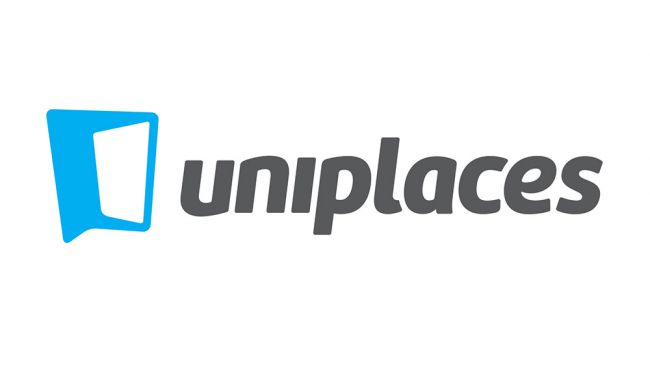
It’s quite close to Ubuntu, but not quite. It could be a modified Ubuntu.
try “Aller Display”
but you have to customize it a bit
Looks like Mariné Black Italic, with the ‘u’ from Mariné Black Oblicua, and the dot over the ‘i’ removed.